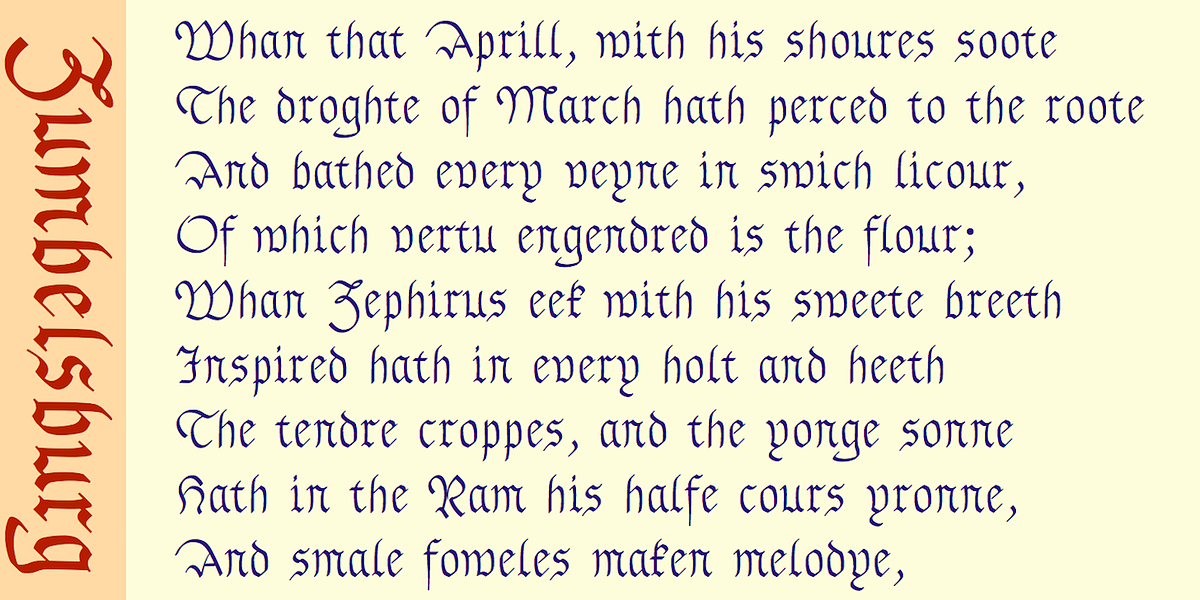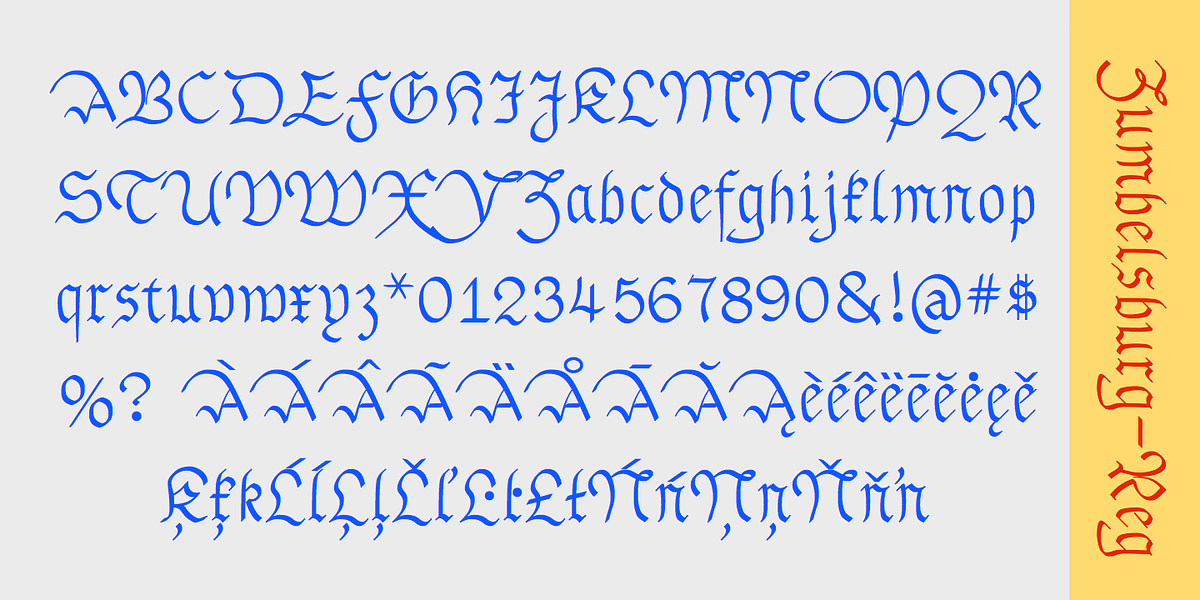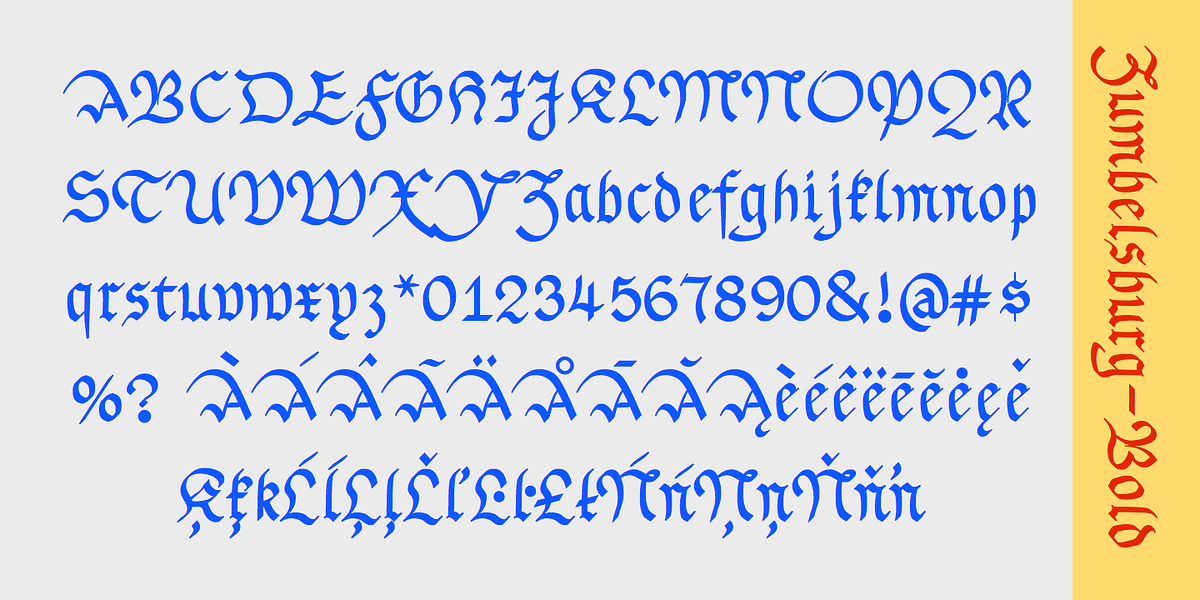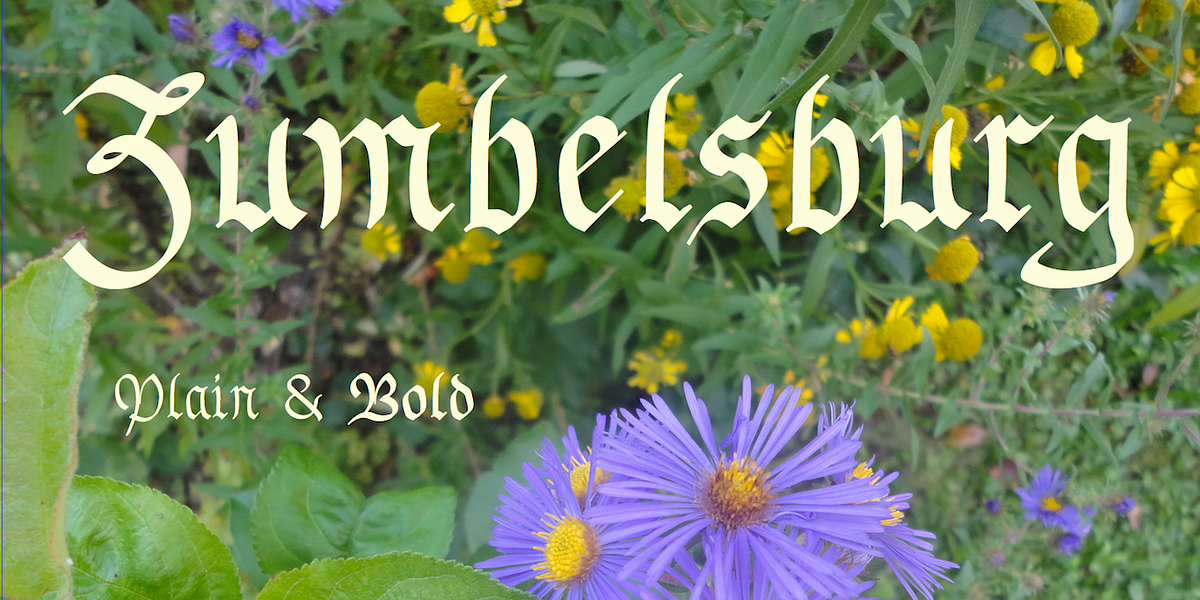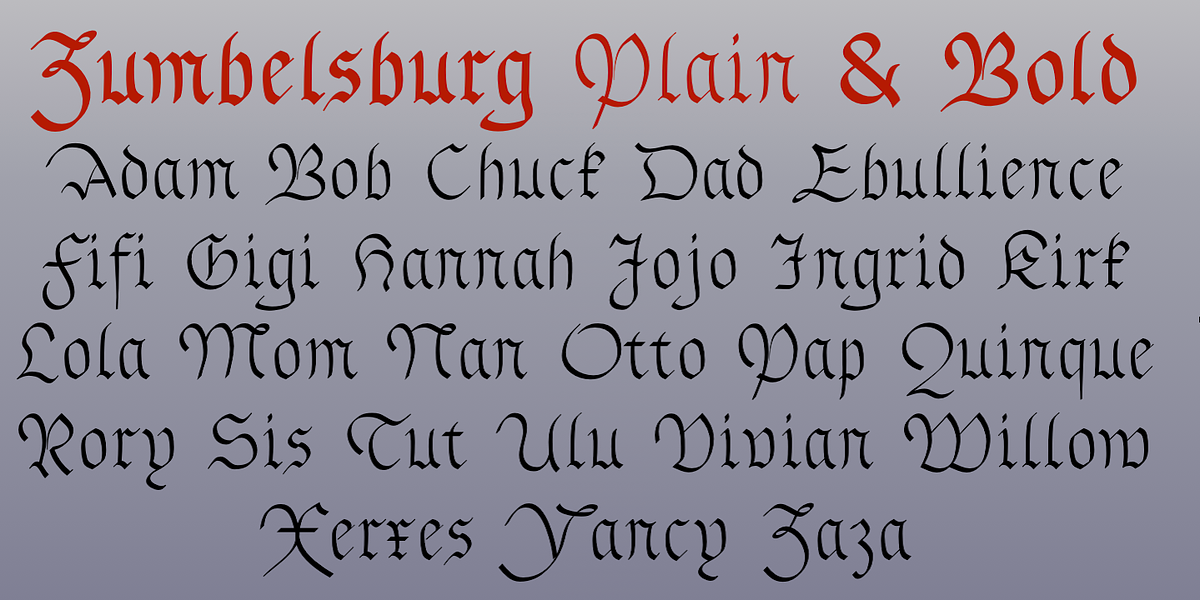
Zumbelsburg
Zumbelsburg is a blackletter typeface characterized by its calligraphic style. The lowercase letters adhere to standard blackletter forms, while the uppercase letters feature prominent flourishes and ornate details, giving the font an exuberant and decorative feel.